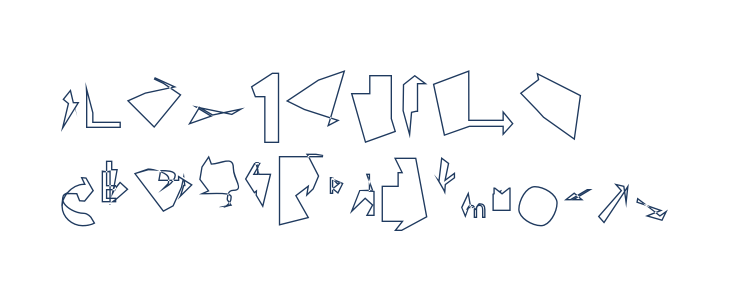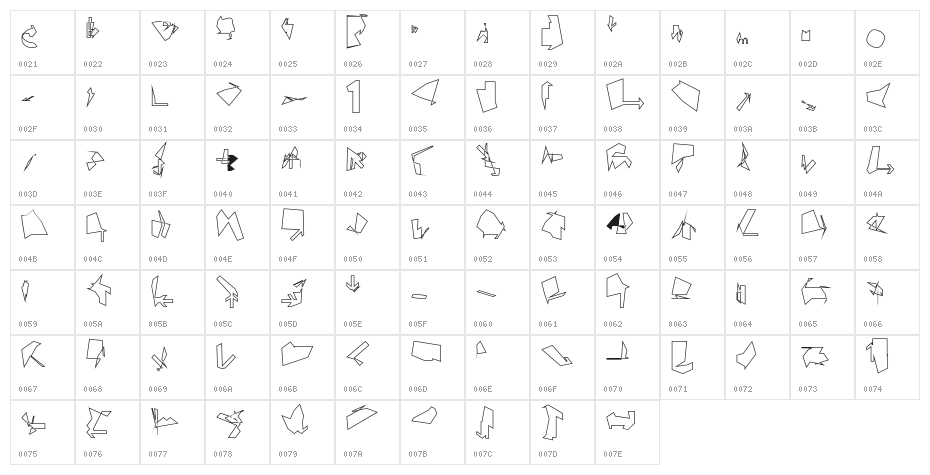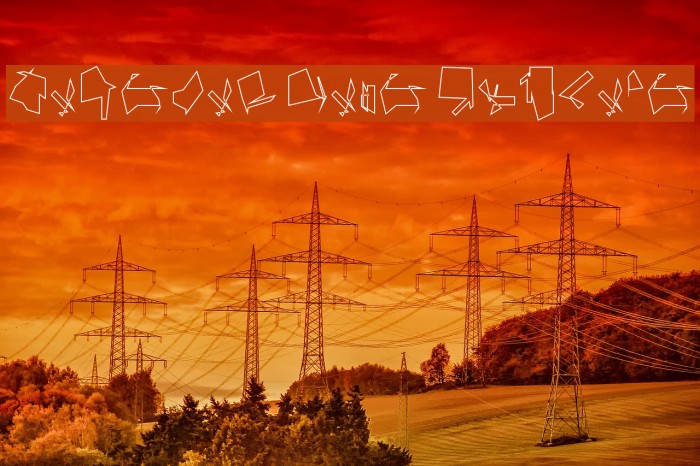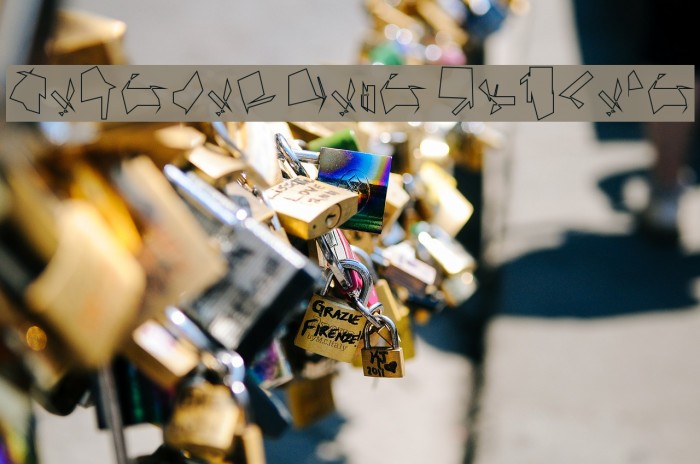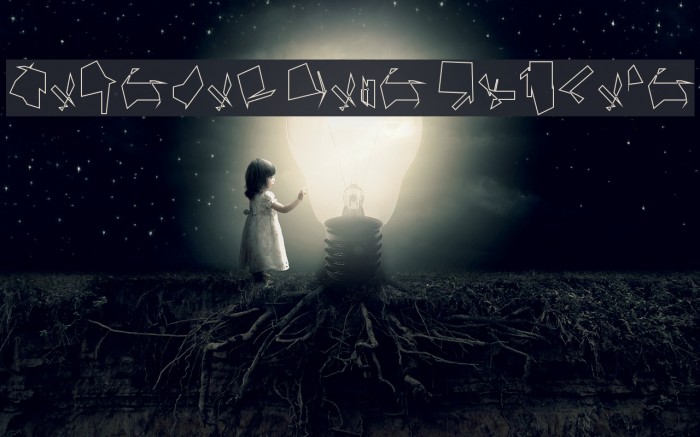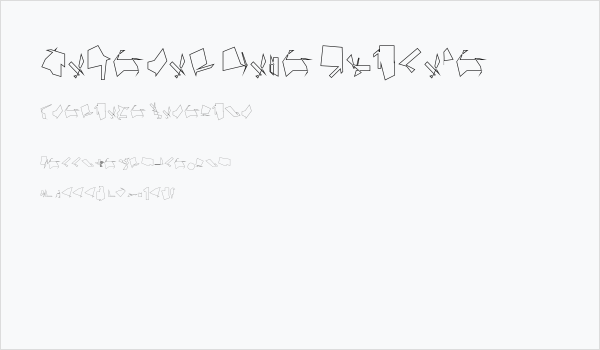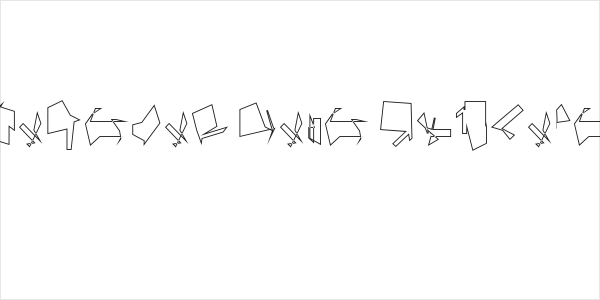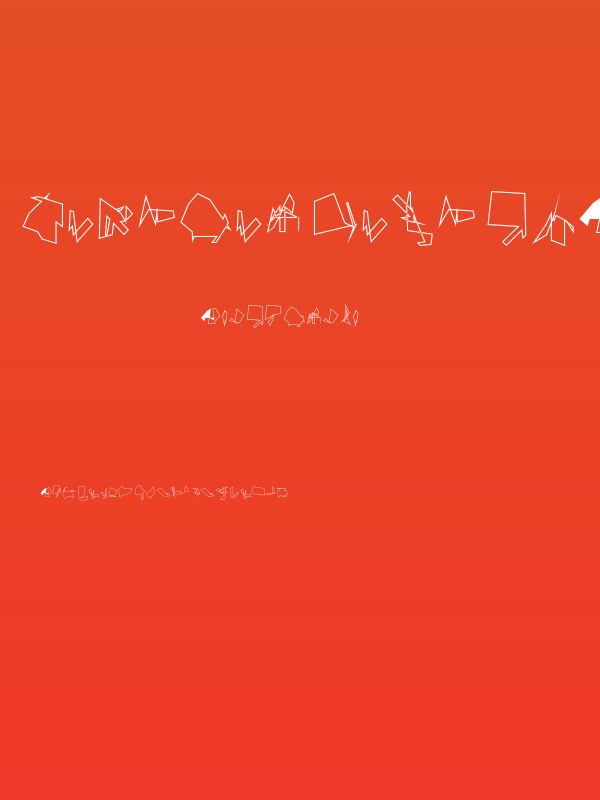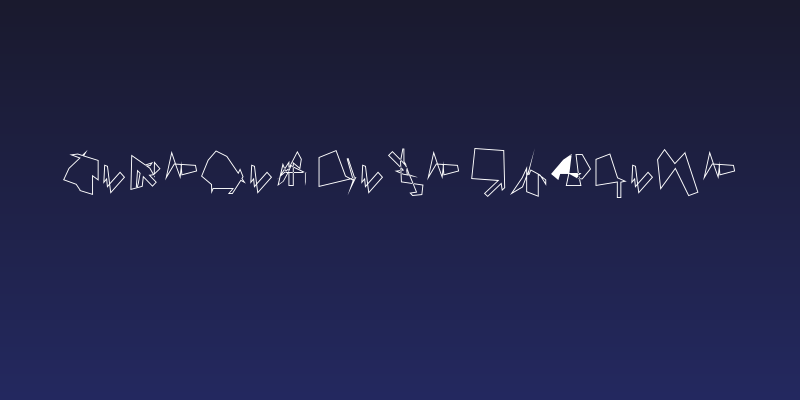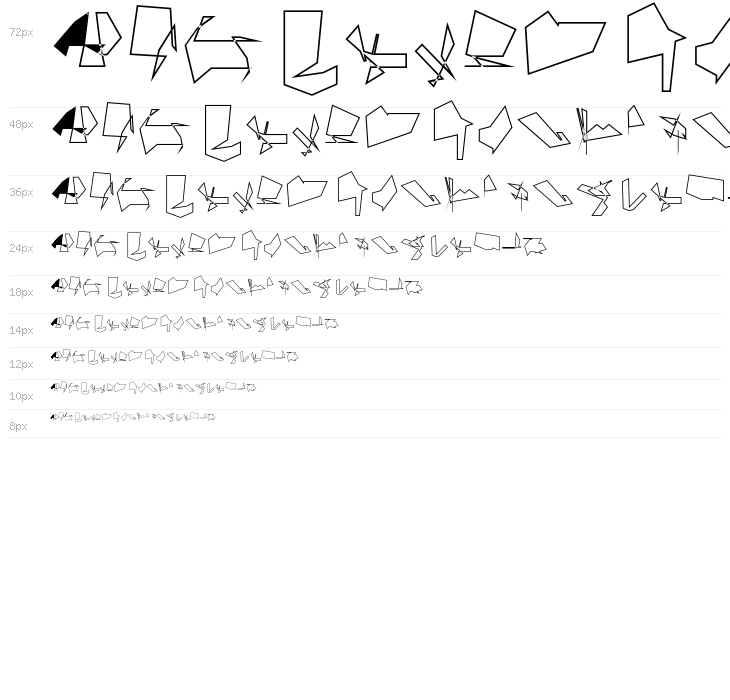
Siberia Wide Outline Font
Siberia Wide Outline Description
This font features an abstract and geometric design, characterized by sharp angles and irregular shapes that create a sense of movement and dynamism. The letters are outlined, giving them a bold and striking appearance, while the wide spacing between strokes adds to the overall unique aesthetic. The font's unconventional style makes it stand out, with each character resembling a piece of modern art. Its distinctiveness is further emphasized by the lack of uniformity in stroke thickness, contributing to a highly decorative and avant-garde look.
| Overall Style | Modern, Avant-garde |
| Use Case | Logos, Headlines, Artistic displays |
| Proposed Projects | Ideal for modern art projects, edgy branding, album covers, and experimental design work. |